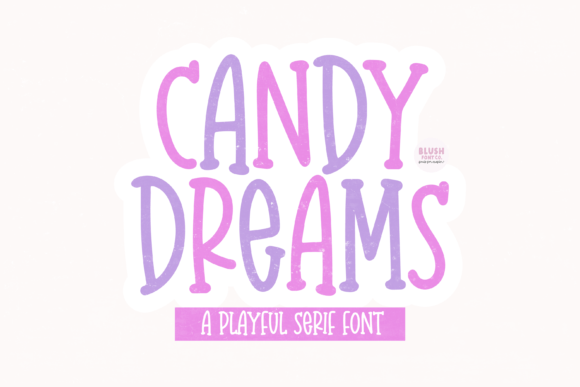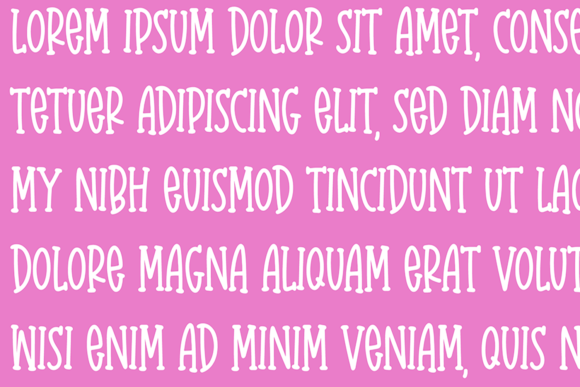
Candy Dreams is a playful, whimsical, and quirky script font, with delightful loops and swashes that exude charm and creativity. Its whimsical letterforms are perfect for children’s books, party invitations, and playful designs that require a touch of imagination. This font is a joyful and unique choice that will bring a sense of fun to any project.
Candy Dreams Font